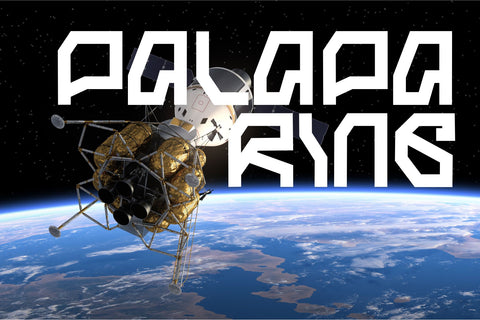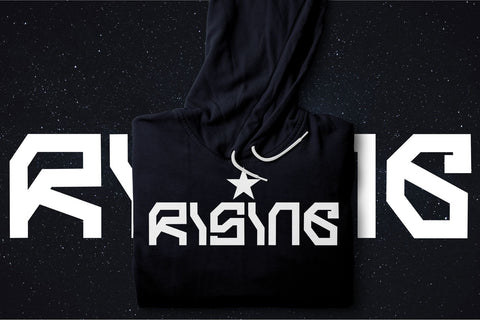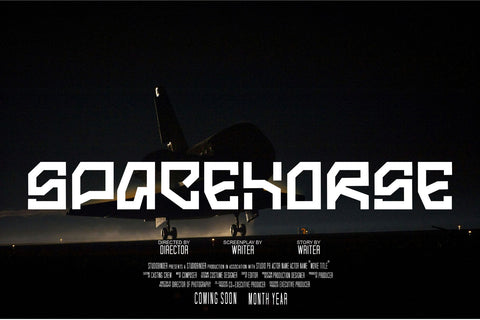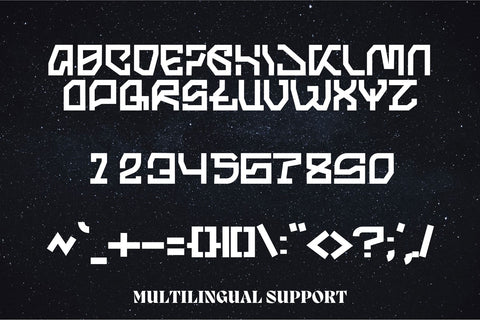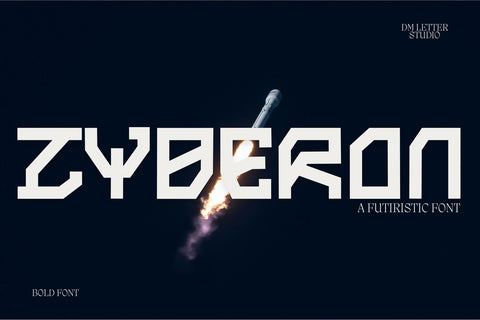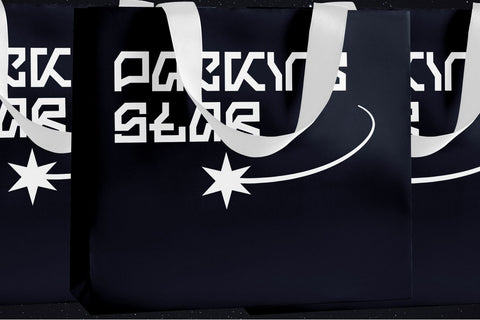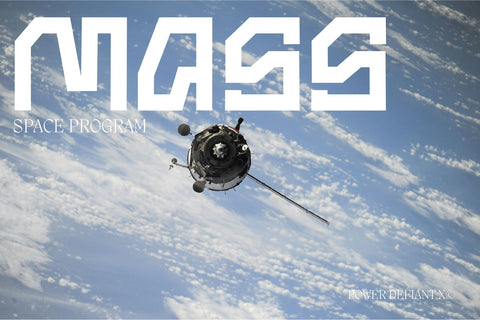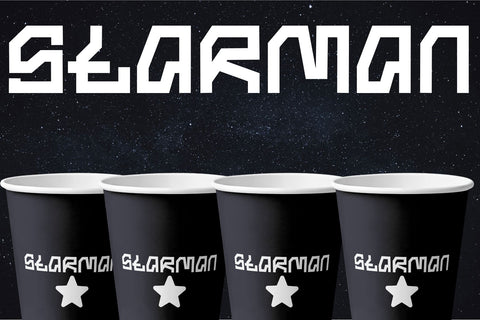
Zyberon
Zyberon – Futuristic Tech Display Font with Cyber Edge
Zyberon is a bold and modern tech-inspired display font built for the digital age. Featuring sharp angles, sleek geometry, and a cyberpunk aesthetic, it’s perfect for projects needing a high-tech, futuristic, or sci-fi edge. Ideal for esports branding, gaming titles, tech logos, UI interfaces, and digital artwork.
Futuristic Aesthetic: Edgy letterforms with cyber-inspired details evoke high-tech themes.
Bold & Attention-Grabbing: Great for headlines, posters, logos, and digital branding.
Versatile Usage: Ideal for esports, gaming channels, tech startups, sci-fi media, and more.